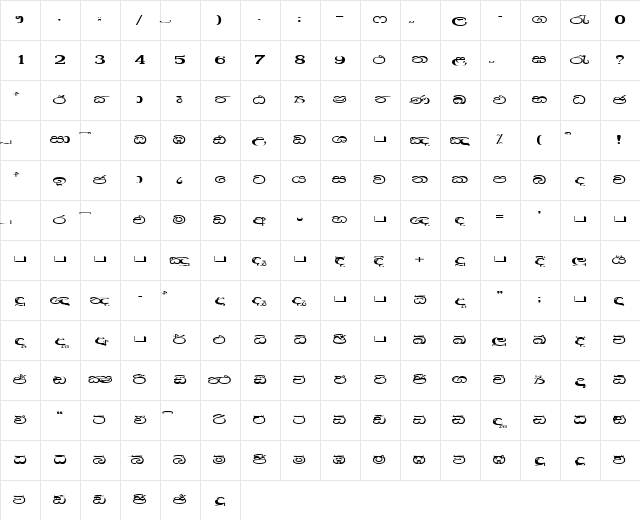
0KDMANEL Regular Free Font
0KDMANEL Regular
Design Context for 0KDMANEL
0KDMANEL is a composed and adaptable typeface that performs quietly and consistently across a wide range of design contexts.